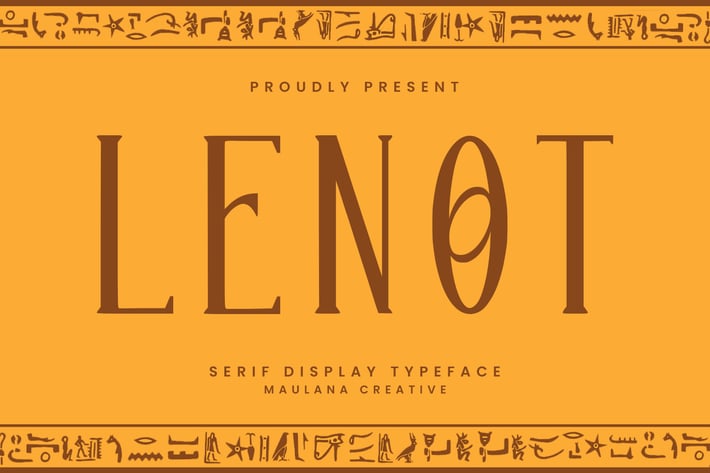
Lenot Serif Display Font
Lenot serif display font. Heavy stroke, fun character with a bit of alternates. To give you an extra creative work. Lenot serif display font support multilingual more than 100+ language. This font is good for logo design, Social media, Movie Titles, Books Titles, a short text even a long text letter and good for your secondary text font with script or serif. Make a stunning work with Lenot serif display font.